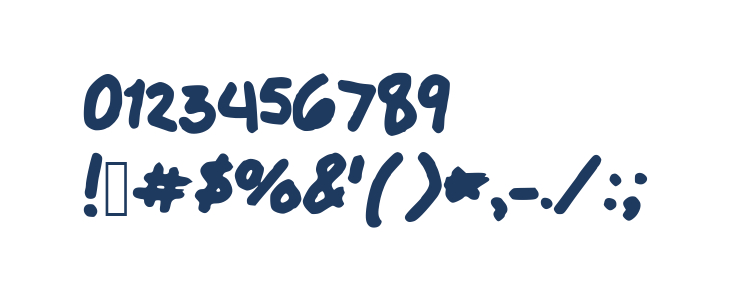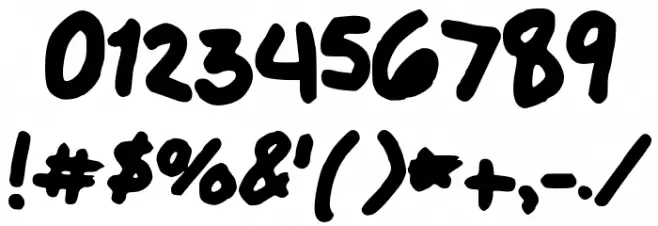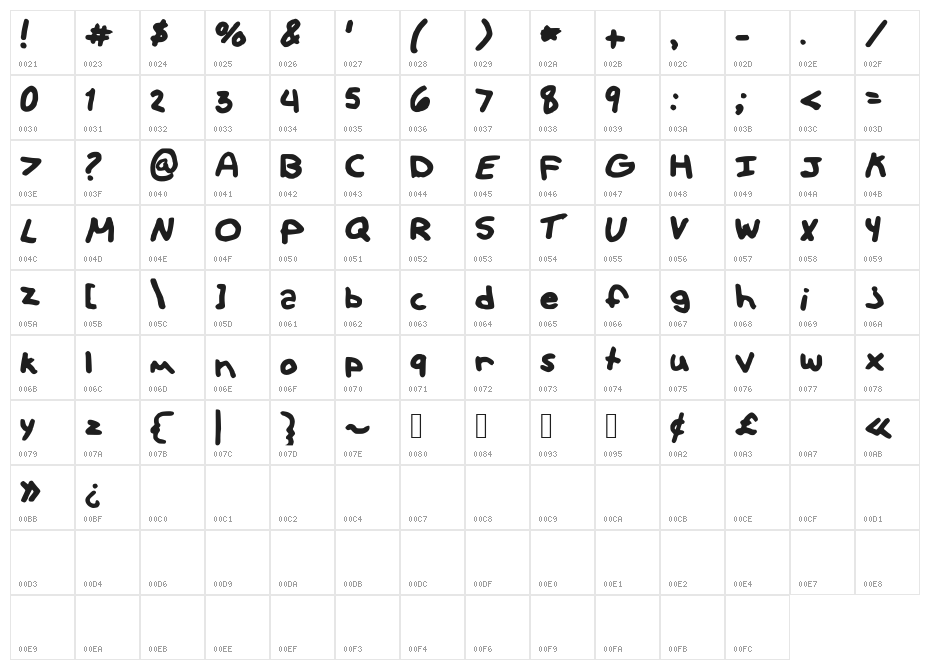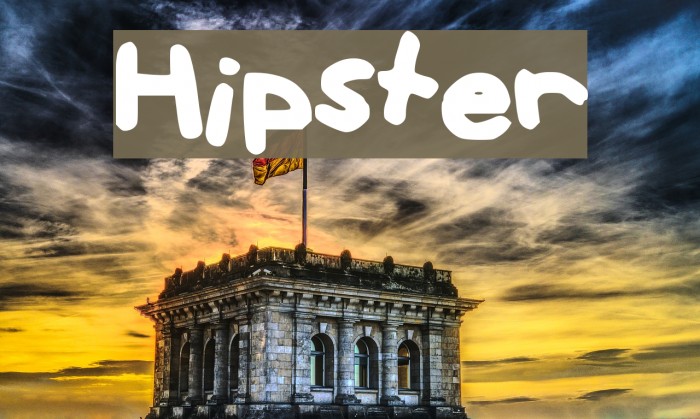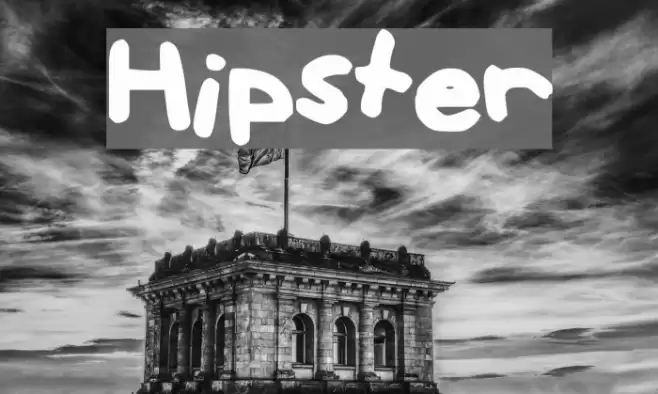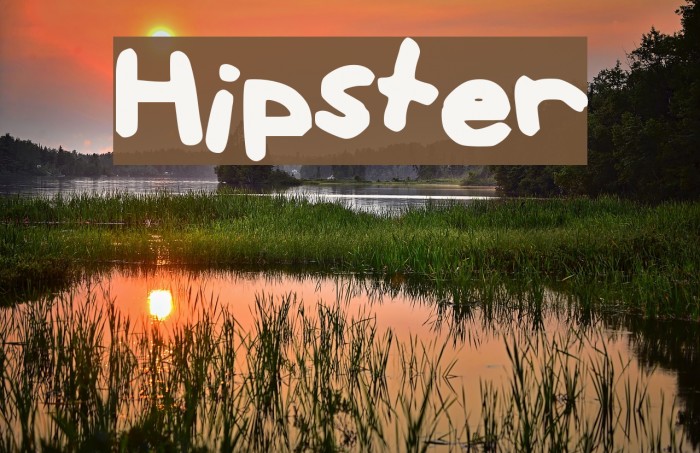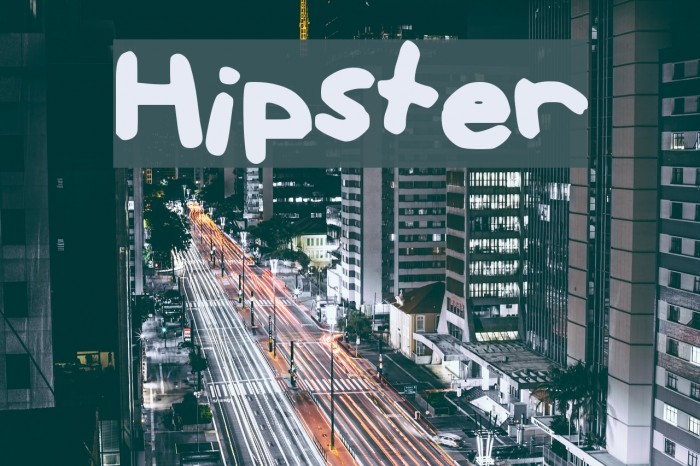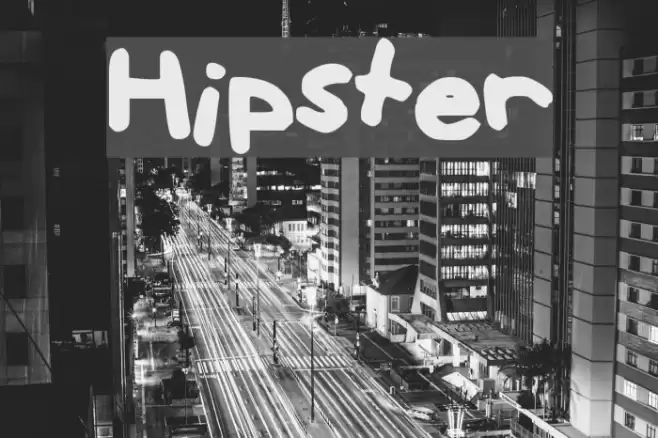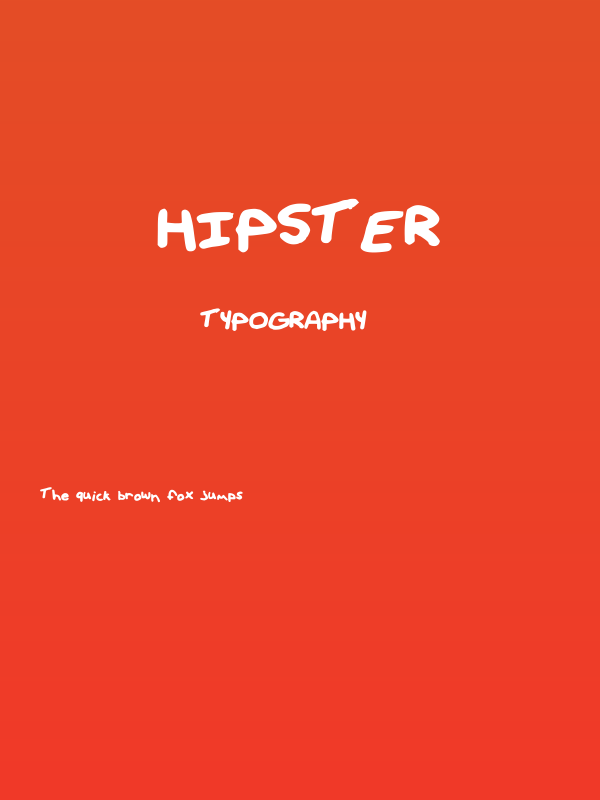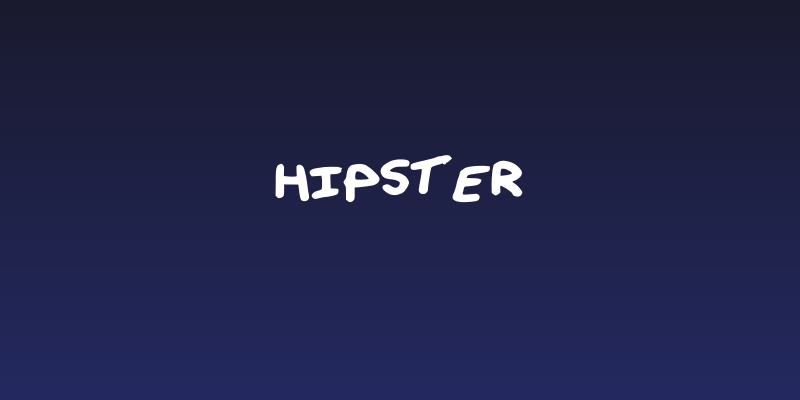
Hipster Font
Hipster Description
This font exudes a playful and casual vibe, characterized by its bold, rounded strokes and hand-drawn appearance. The letters are slightly irregular, adding a touch of whimsy and personality. The uppercase and lowercase letters maintain a consistent style, with a smooth flow and a slightly exaggerated curvature. The numbers and special characters follow the same design principles, ensuring a cohesive look across all elements. This font is perfect for projects that require a fun and informal touch, making it ideal for creative and artistic endeavors.
| Proposed Projects | Ideal for children's books, greeting cards, playful branding, and creative posters. |